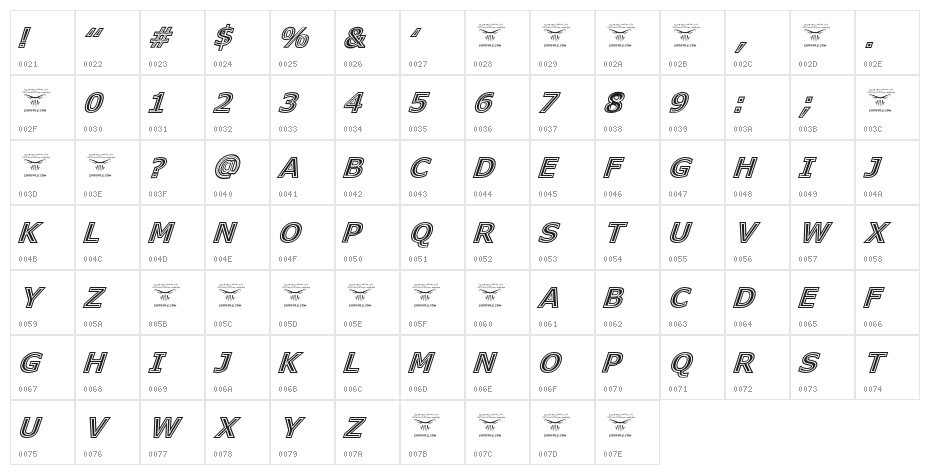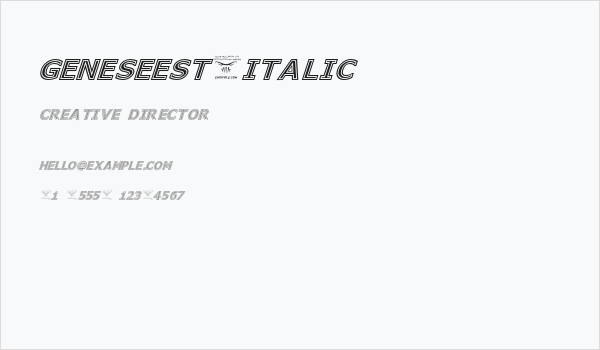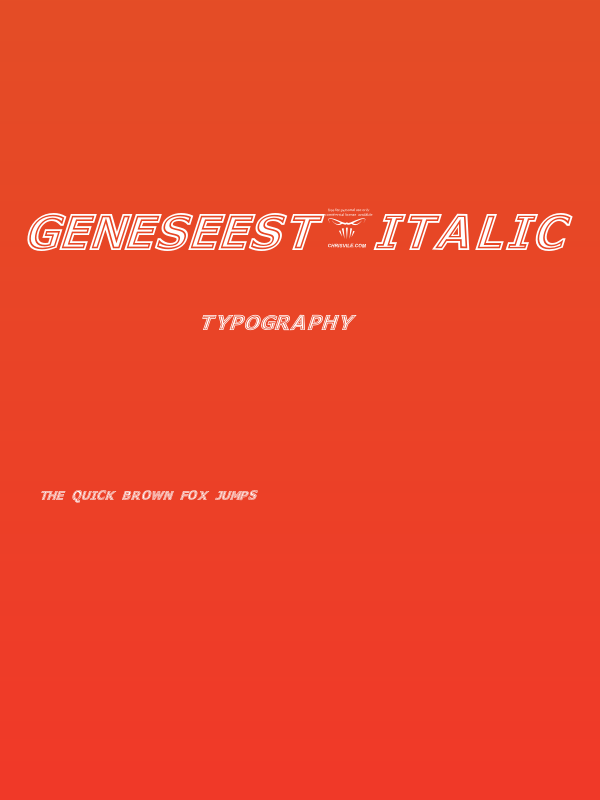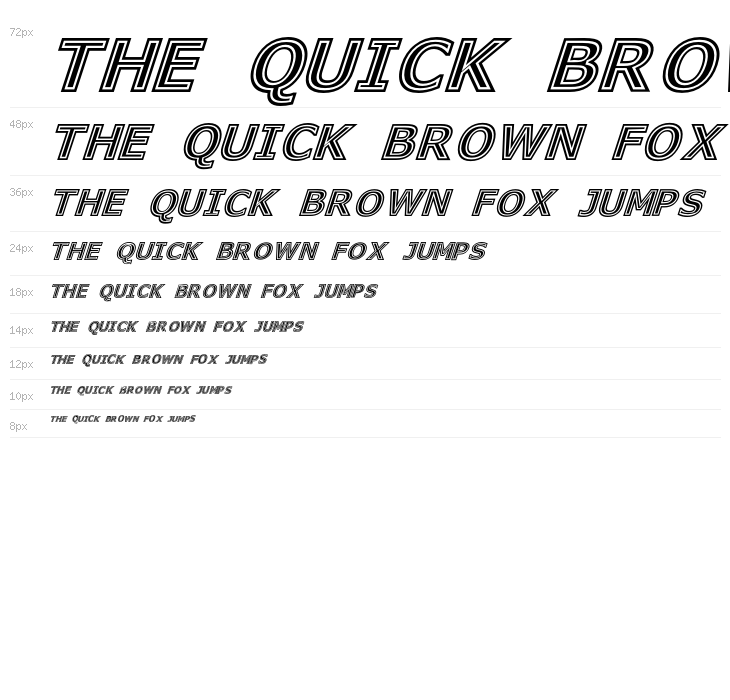
GeneseeSt-Italic Font
GeneseeSt-Italic Description
This font features a bold, italicized style with a double-outline effect that gives it a dynamic and modern appearance. The uppercase and lowercase letters maintain a consistent slant, enhancing the italicized look. The numbers and special characters follow the same stylistic approach, ensuring uniformity across all glyphs. The font's design is clean yet striking, making it suitable for attention-grabbing headlines or titles. Its geometric shapes and sharp angles contribute to a contemporary feel, while the outlined effect adds depth and dimension.
Proposed ProjectsIdeal for branding, posters, headlines, and any design project requiring a bold and modern statement.